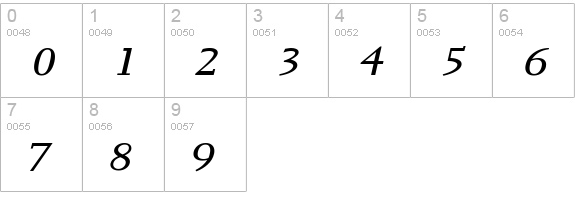
Transit 2 Wide BoldItalic Font Details
Transit 2 Wide BoldItalic is a distinctive, extended-width variant in the Transit typeface family \xE2\x80\x94 well suited to design and typography projects.
Introducing Transit 2 Wide BoldItalic font - a stunning display typeface that combines boldness and elegance with a touch of modernity. This versatile font is perfect for a wide range of design projects, from headlines and posters to branding and packaging. With its unique blend of boldness and italics, Transit 2 Wide BoldItalic font brings a sense of sophistication and style to any design. The strong and distinct letterforms are carefully crafted to make a lasting impression, while the italicized elements add a dynamic and expressive touch. One of the best features of Transit 2 Wide BoldItalic font is that it is free. Yes, you heard it right! This incredible font is freely available to download at FontsMarket.com. Now you can enhance your design projects without worrying about additional costs. The freedom to use this font without any restrictions allows you to explore your creativity and push the boundaries of typography. Whether you're working on a professional project or a personal creative endeavor, Transit 2 Wide BoldItalic font is here to elevate your design to new heights. Its clean and legible characters ensure optimal readability, while the bold and italic styles create a visual impact that captures attention. So why wait? Download Transit 2 Wide BoldItalic font today from FontsMarket.com and embark on a typographic journey filled with boldness, elegance, and the freedom to create. Whether you're a seasoned designer or just starting out, this font will undoubtedly become a valuable asset in your font library.